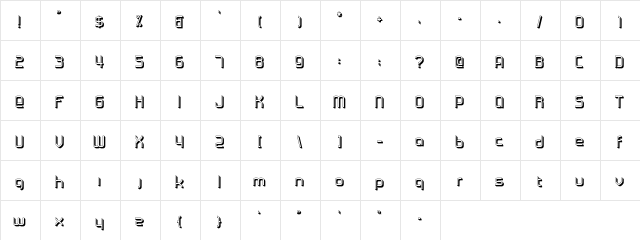
MinidibEmboss Regular
| Foundry | Marc Clancy |
Design Context for MinidibEmboss Typeface
MinidibEmboss offers clean, dependable letterforms without strong stylistic allegiance, making it a practical choice for designers who need flexibility.